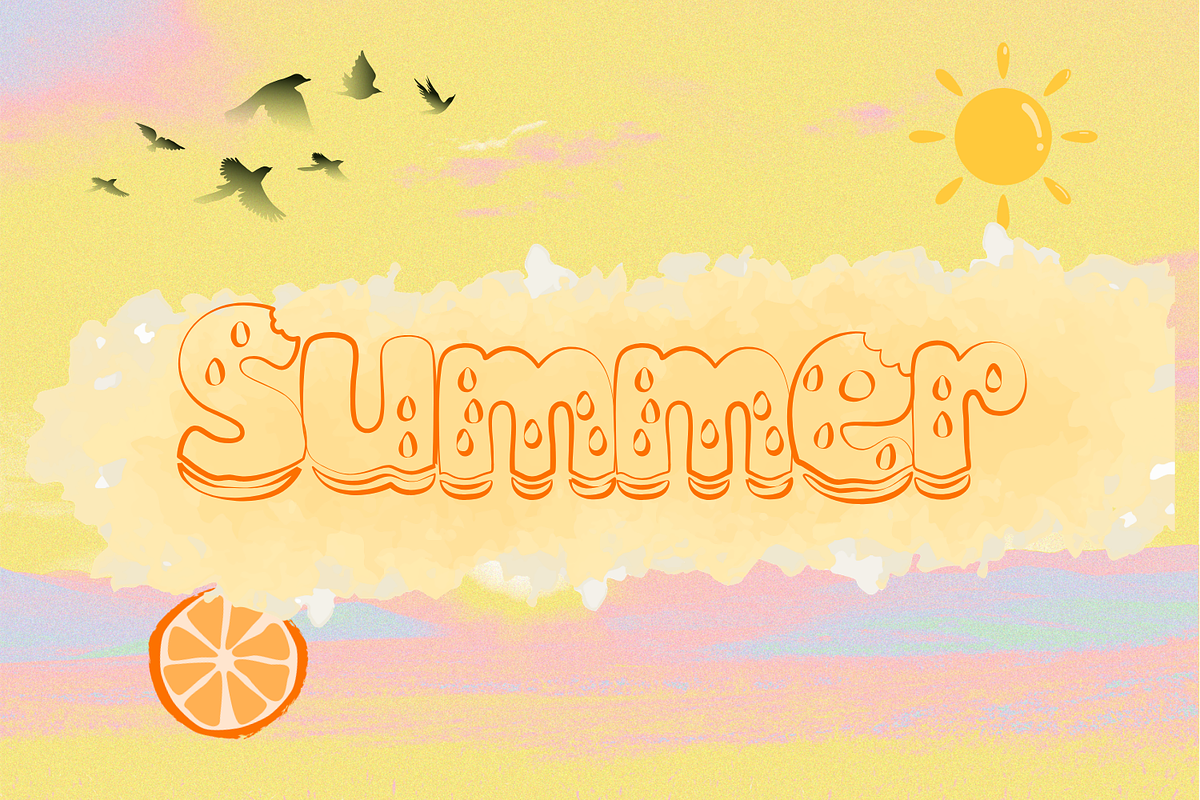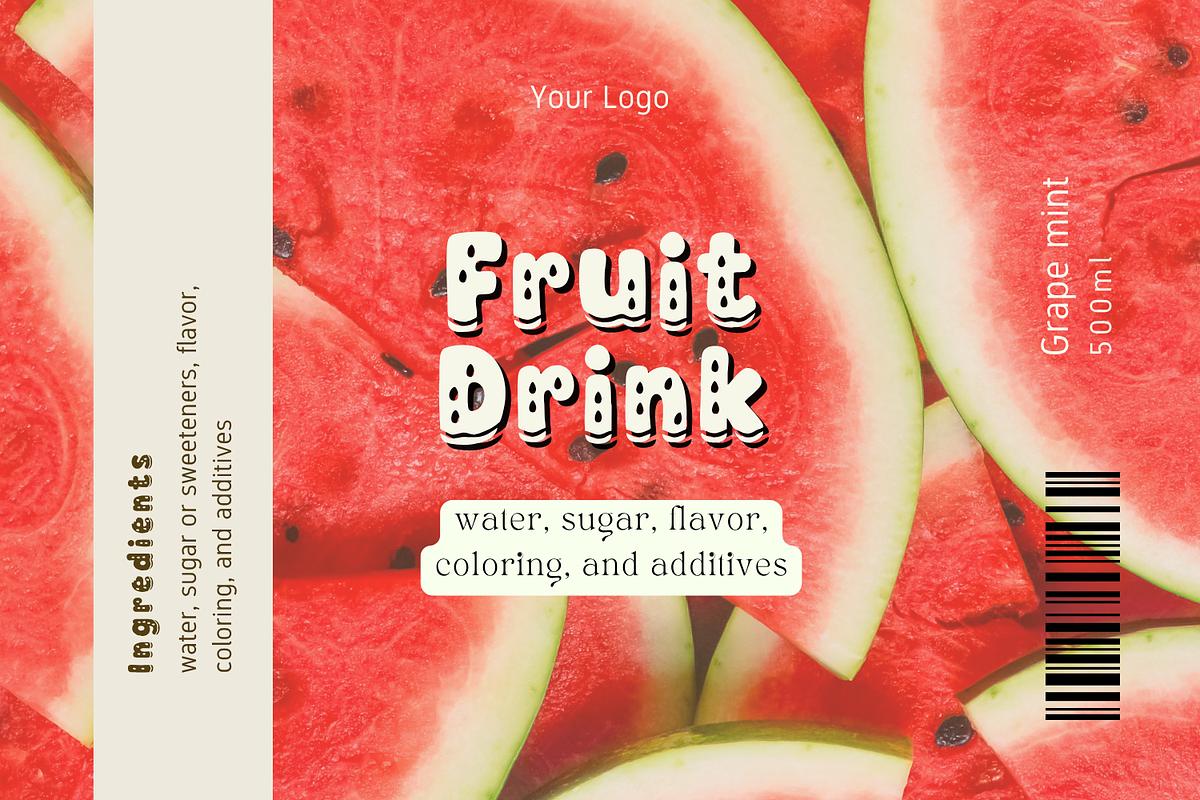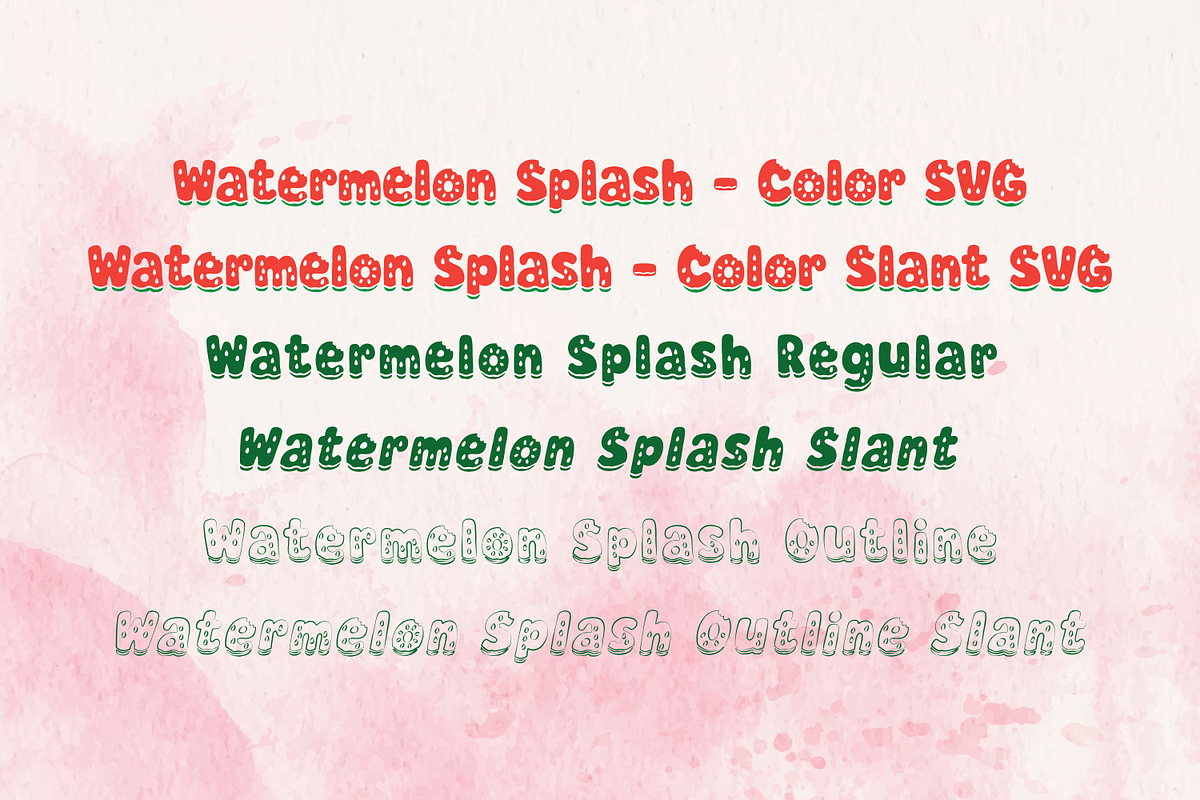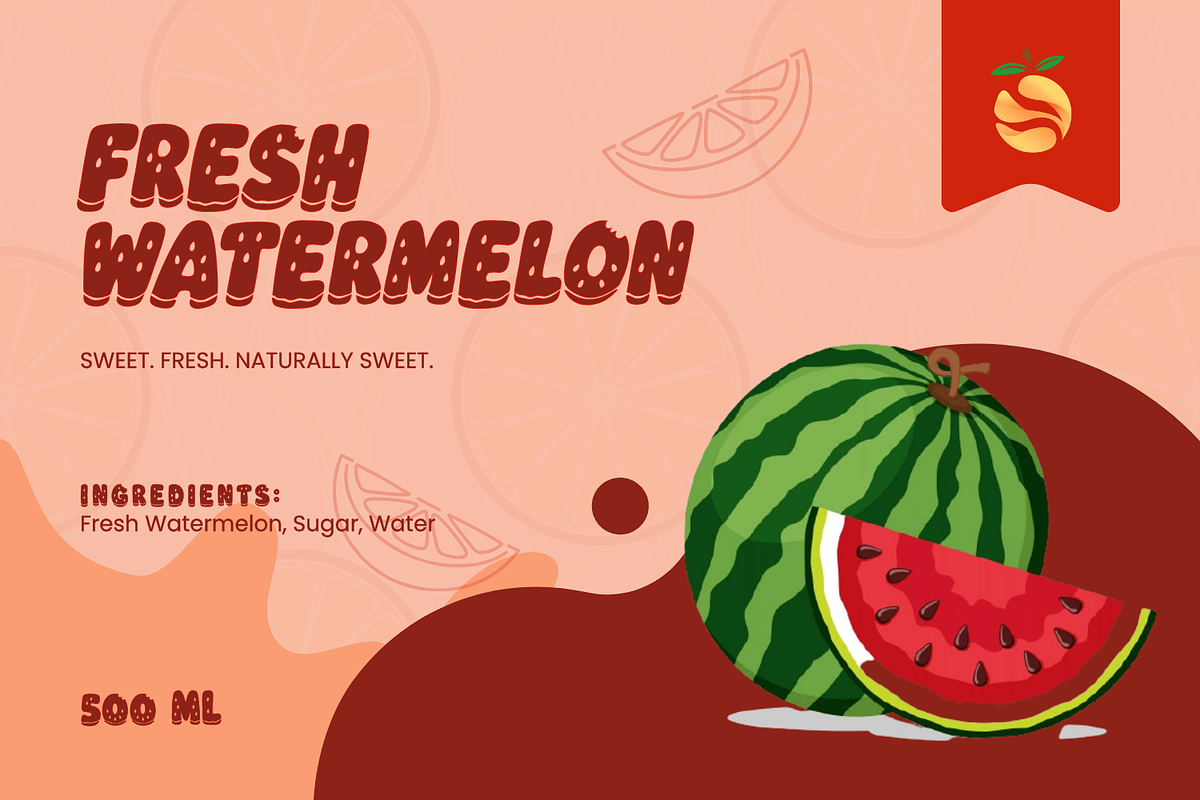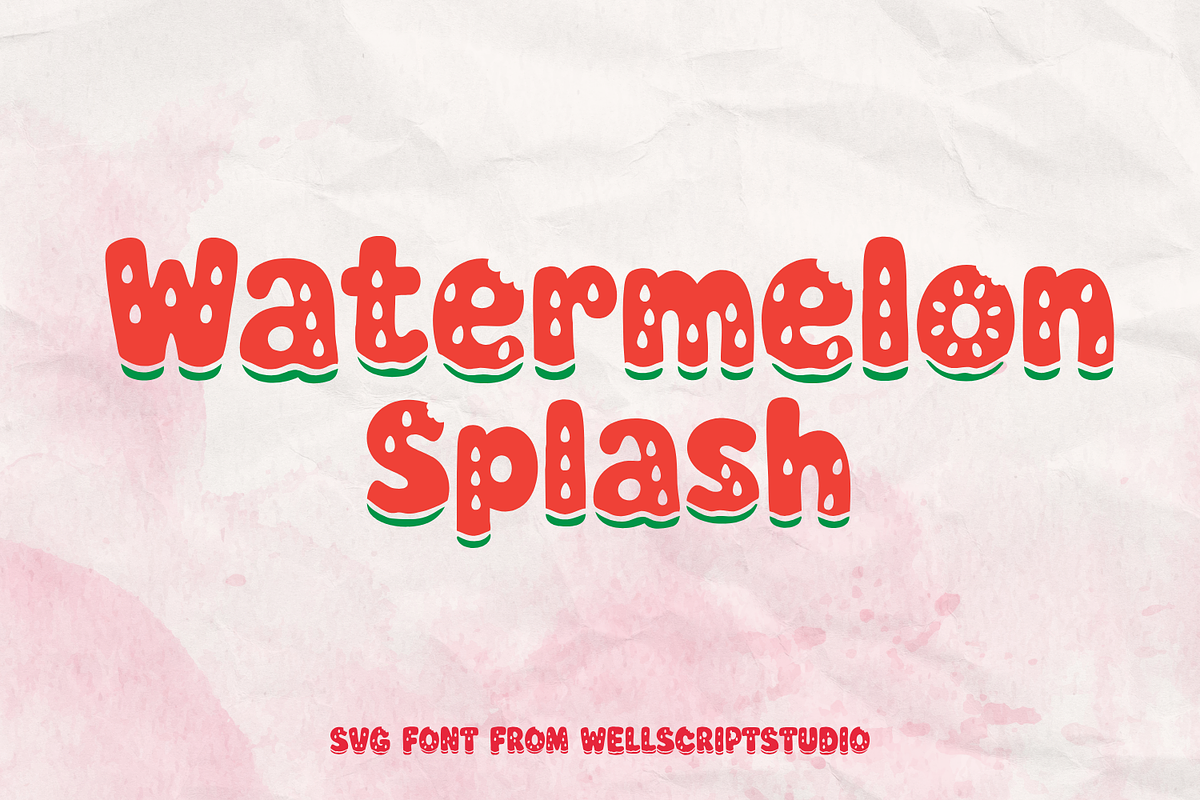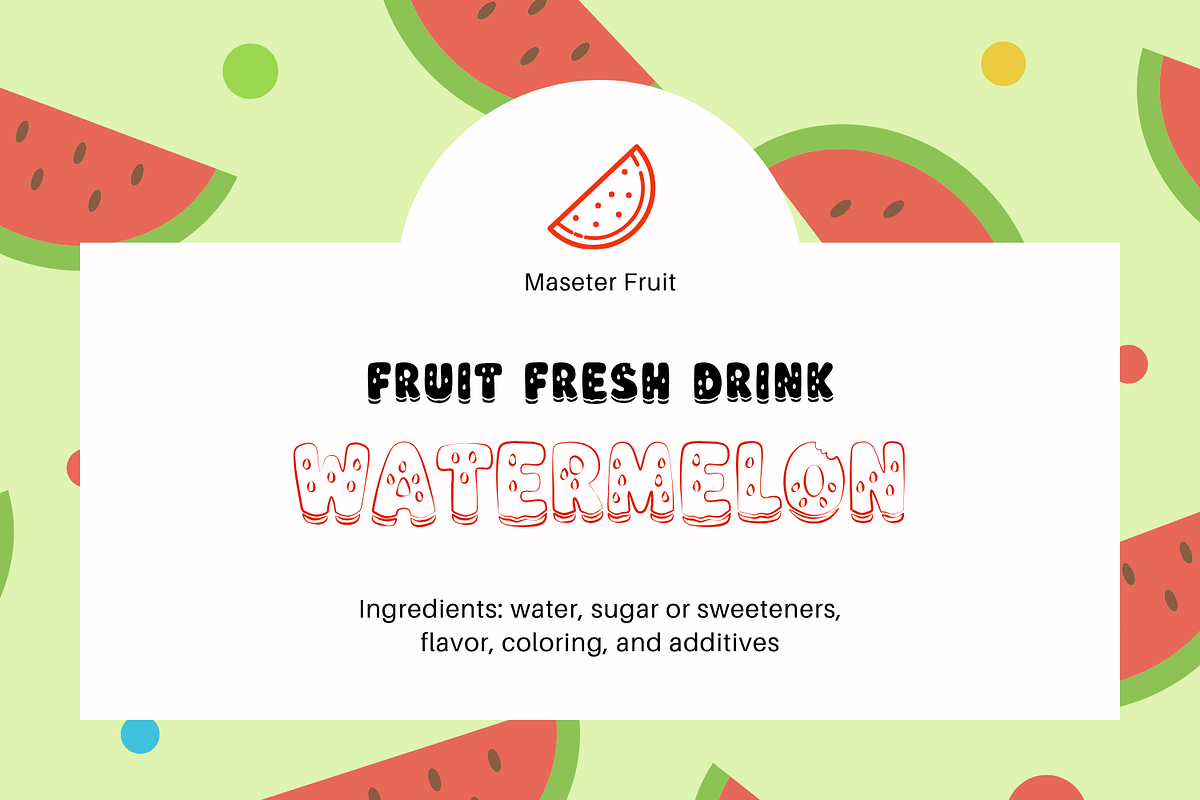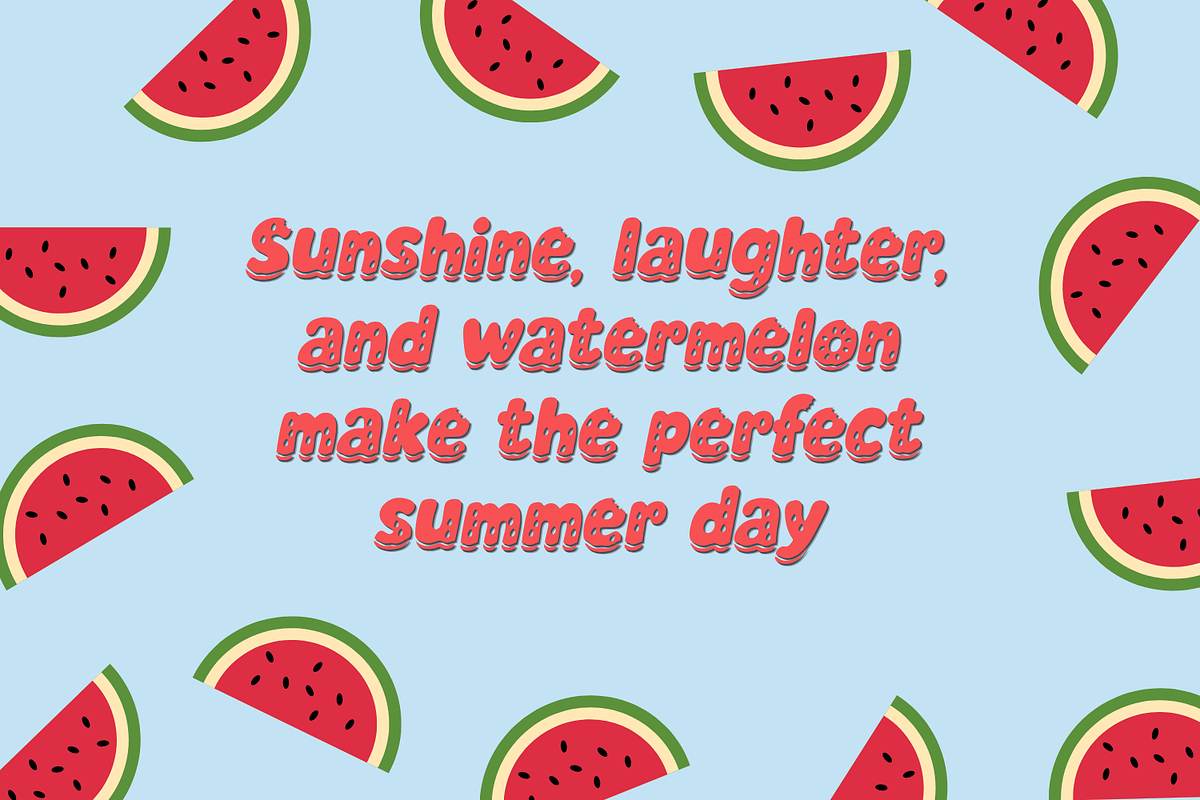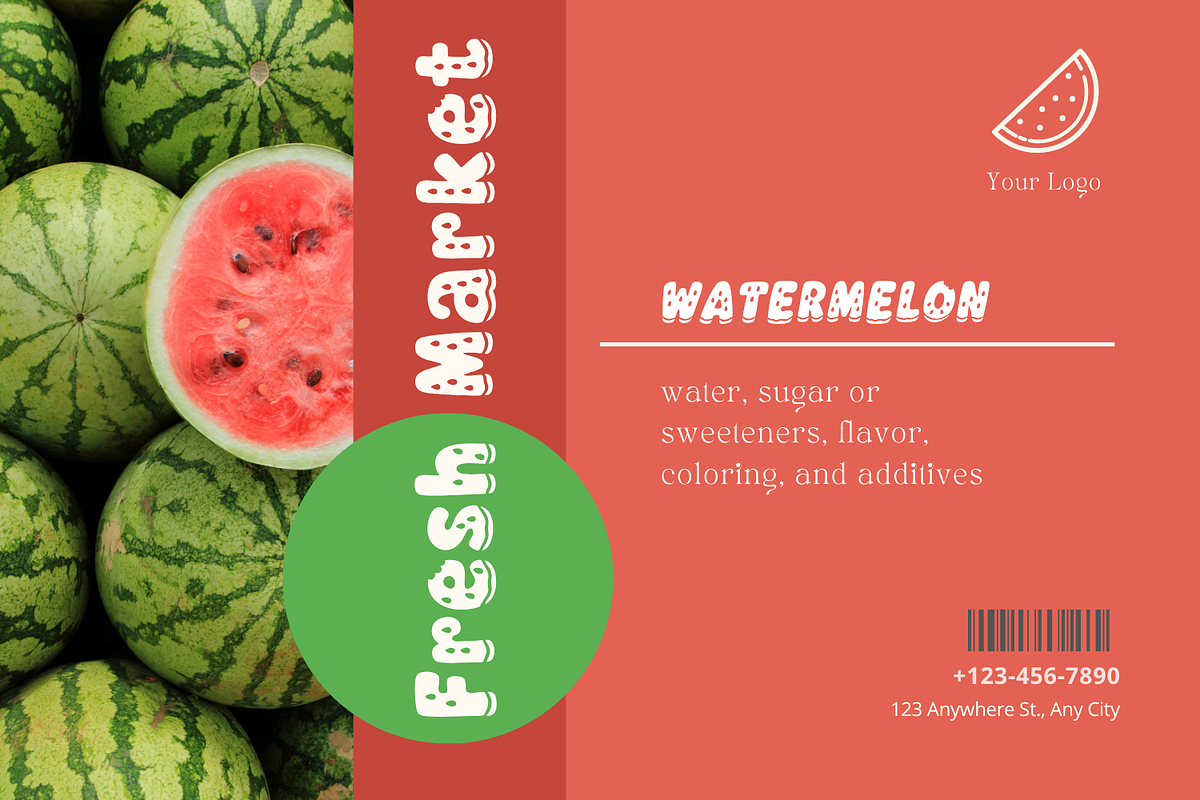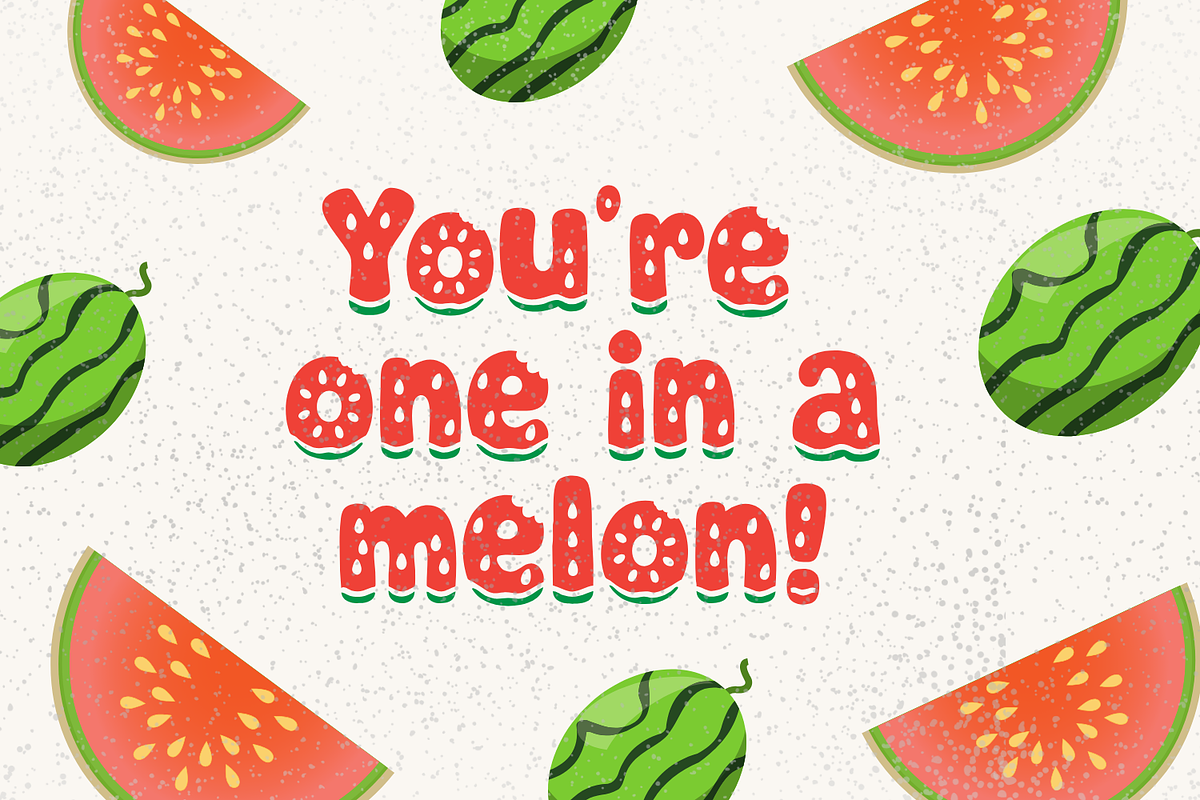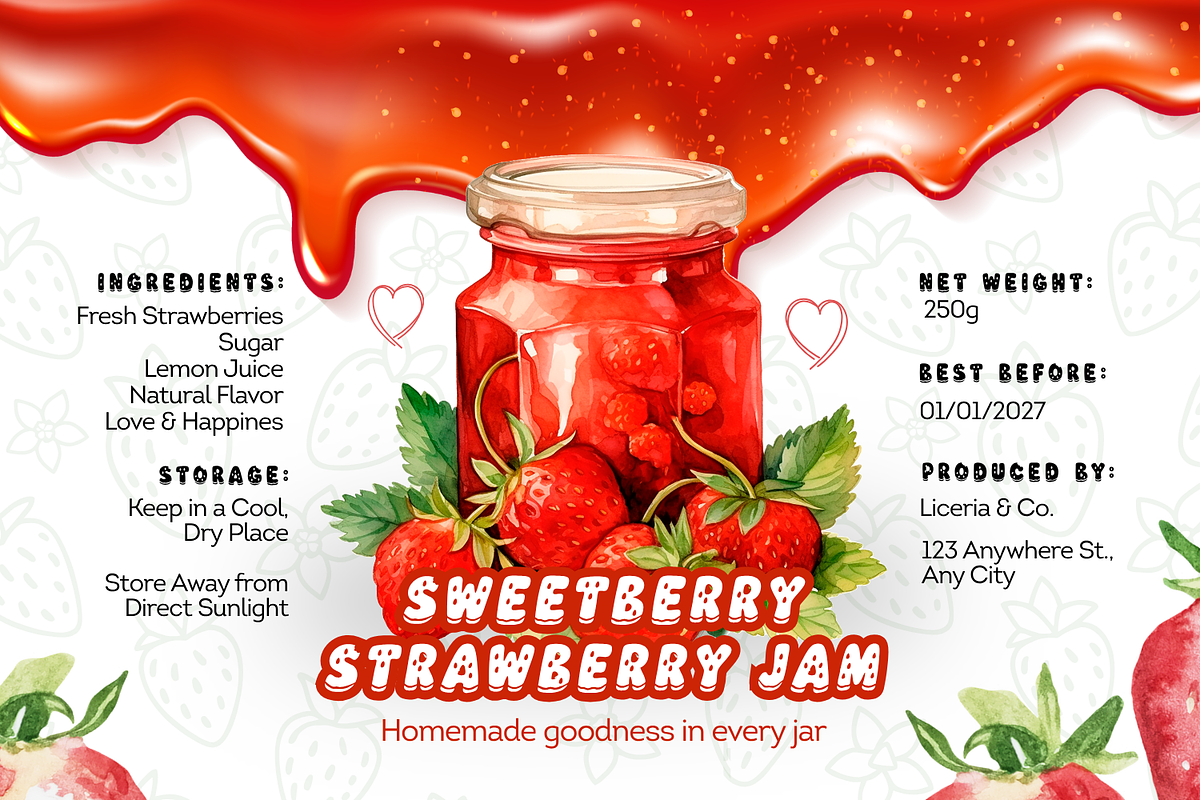
Watermelon Splash - SVG Font
Meet Watermelon Splash, a fresh and playful color SVG font inspired by juicy watermelon slices, sunny days, and sweet summer vibes. Packed with fruity details, watermelon seed accents, and cheerful character shapes, Watermelon Splash is designed to bring a fun and refreshing touch to your creative projects.
Perfect for summer branding, packaging, stickers, party invitations, greeting cards, social media graphics, posters, merchandise, kids projects, and more.